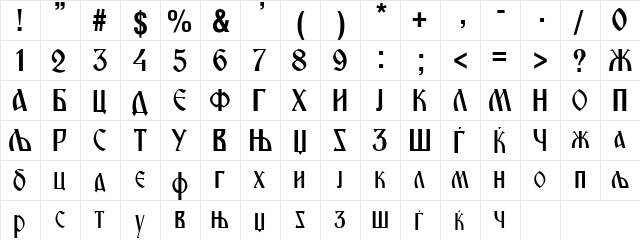
C_Miroslavqevo Normal
Design Context for C_Miroslavqevo Typeface
C_Miroslavqevo is a composed and adaptable typeface that performs quietly and consistently across a wide range of design contexts.